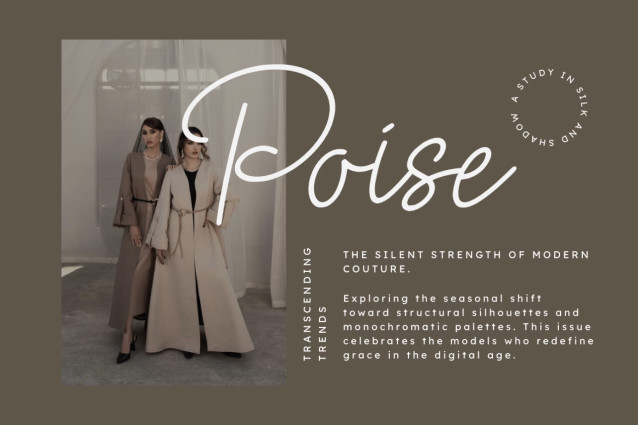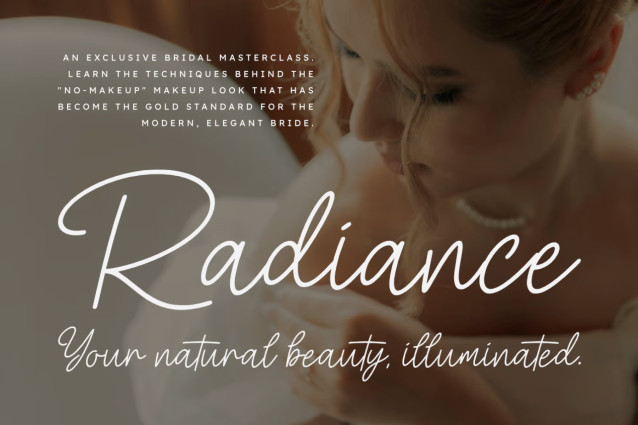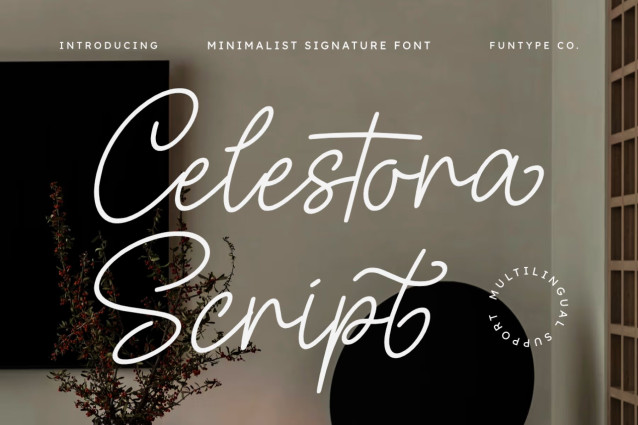
Celestora Script Font
Celestona Script Font – a minimalist signature font oozing with subtle elegance, designed to elevate your typographic creations. This font’s refined architecture paired with an organic cadence is an ideal choice for wedding invites, photography watermarks, stylish branding, and contemporary lifestyle emblems. The purity and sophistication of its design bestows an audacious, polished, and heartfelt appeal upon your visual communications.